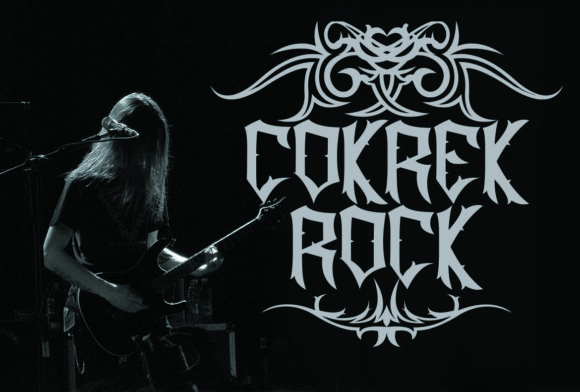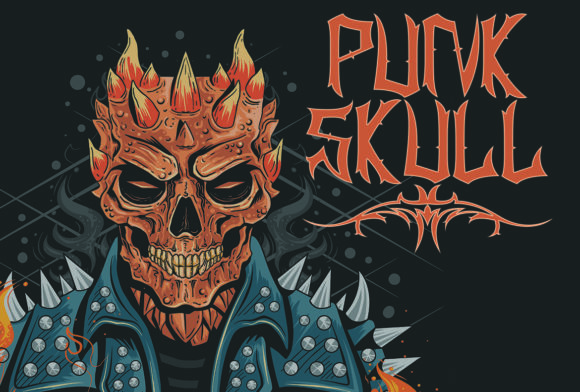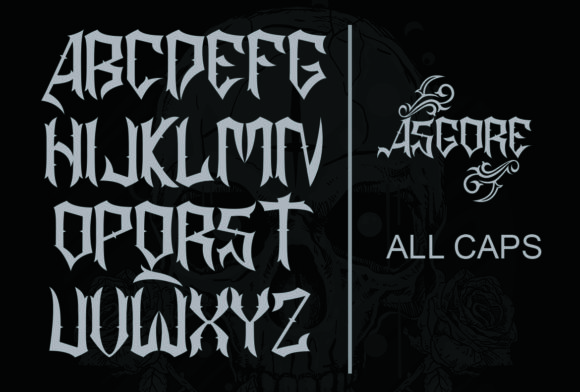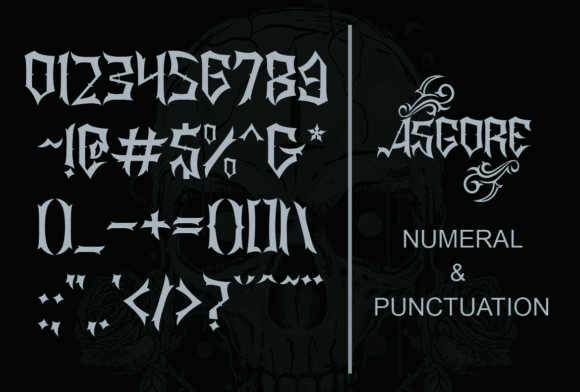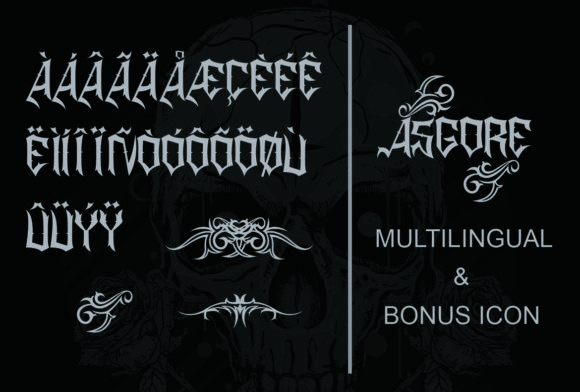
Discover the Bold Elegance of Asgore Font: A Blackletter Masterpiece
In the realm of typography, certain fonts stand out for their unique character and versatility. Among these, the Asgore font has gained significant attention for its striking blackletter style and wide range of applications. Whether you’re a designer looking for a bold statement for a logo, a crafty individual creating personalized greeting cards, or someone interested in tattoo lettering, Asgore is a fantastic choice. In this article, we’ll dive into the world of Asgore font, exploring its features, uses, and why it has become a favorite among designers and crafters alike.
What is Asgore Font?
Asgore is a great blackletter font, distinguished by its dramatic and elegant strokes. Blackletter fonts, also known as Gothic scripts, are characterized by their ornate and somewhat dramatic appearance, reminiscent of medieval manuscripts. Asgore, in particular, brings a modern twist to this classic style, offering clean lines and a bold presence that makes it highly legible and visually appealing.
Key Features of Asgore Font
- Unique Aesthetic: Asgore boasts a unique blend of traditional blackletter elements with a contemporary touch, making it stand out in any project.
- Versatility: Its bold and clear design makes it suitable for a wide range of applications, from professional branding to personal projects like tattoos and handmade cards.
- Legibility: Despite its ornate style, Asgore maintains a high level of legibility, ensuring that your message is conveyed clearly and effectively.
Applications of Asgore Font
The versatility of Asgore font is one of its most appealing qualities. Here are some of the many ways you can use Asgore:
- Logos and Branding: Create a memorable brand identity with Asgore. Its unique and bold style can help your brand stand out in a crowded market.
- Greeting Cards: Add a touch of elegance and personality to your greeting cards. Asgore’s distinctive look can elevate any occasion, from birthdays to weddings.
- Tattoos: For those looking for a meaningful and visually striking tattoo, Asgore’s elegant lettering can be a great inspiration.
- Lettering Projects: Whether you’re working on a personal lettering project or a client’s commission, Asgore provides a robust foundation for creating stunning lettering pieces.
- Merchandise: From t-shirts to posters, Asgore font can add a bold statement to your merchandise, making it more appealing to potential buyers.
Tips for Using Asgore Font Effectively
To make the most out of Asgore font, consider the following tips:
- Pair with Complementary Fonts: When using Asgore alongside other fonts, choose ones that complement its bold style. Simple sans serifs or elegant scripts can create a nice contrast.
- Adjust Size and Color: Experiment with different sizes and colors to ensure Asgore stands out in your design without overwhelming it.
- Consider the Context: Think about where and how your design will be viewed. Ensure that Asgore’s size and style are appropriate for its intended use.
Asgore font is a powerful tool for designers and crafters looking to add a touch of elegance and boldness to their projects. Its unique blackletter style, combined with its versatility and legibility, makes it an excellent choice for a wide range of applications. Whether you’re creating professional branding materials, personal greeting cards, or exploring the art of lettering, Asgore is sure to inspire. With its ease of use and stunning aesthetic, Asgore font is set to become a staple in your typography arsenal.